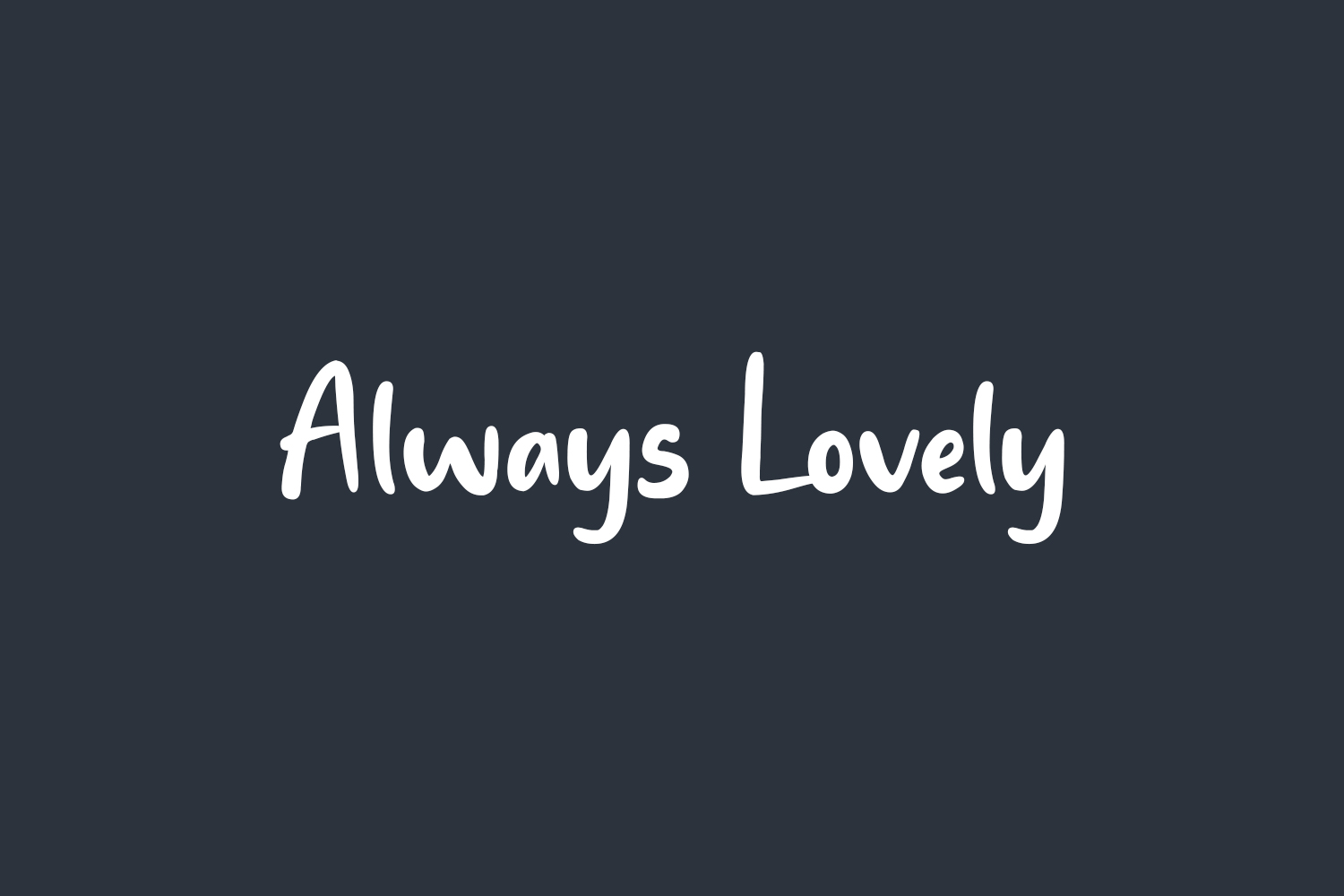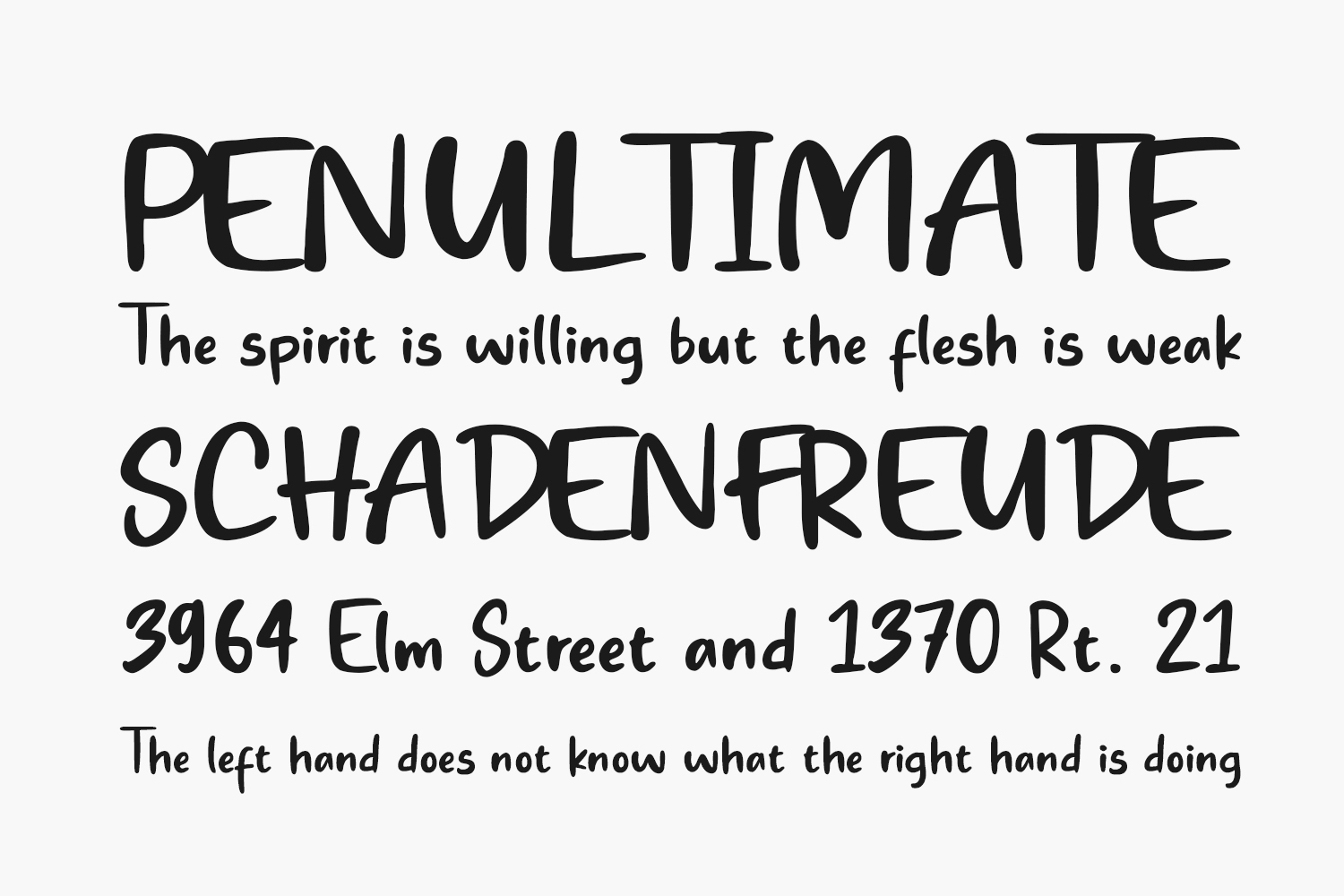
Always Lovely Free Font is a cute, natural, and friendly handwritten font, featuring the perfect amount of trendiness. Whether you’re using it for crafting, digital designing, presentations, or greeting card making, it’s perfect. Always Lovely Free Font was designed by Sronstudio and is free for personal use only. Please purchase the full version for commercial use.